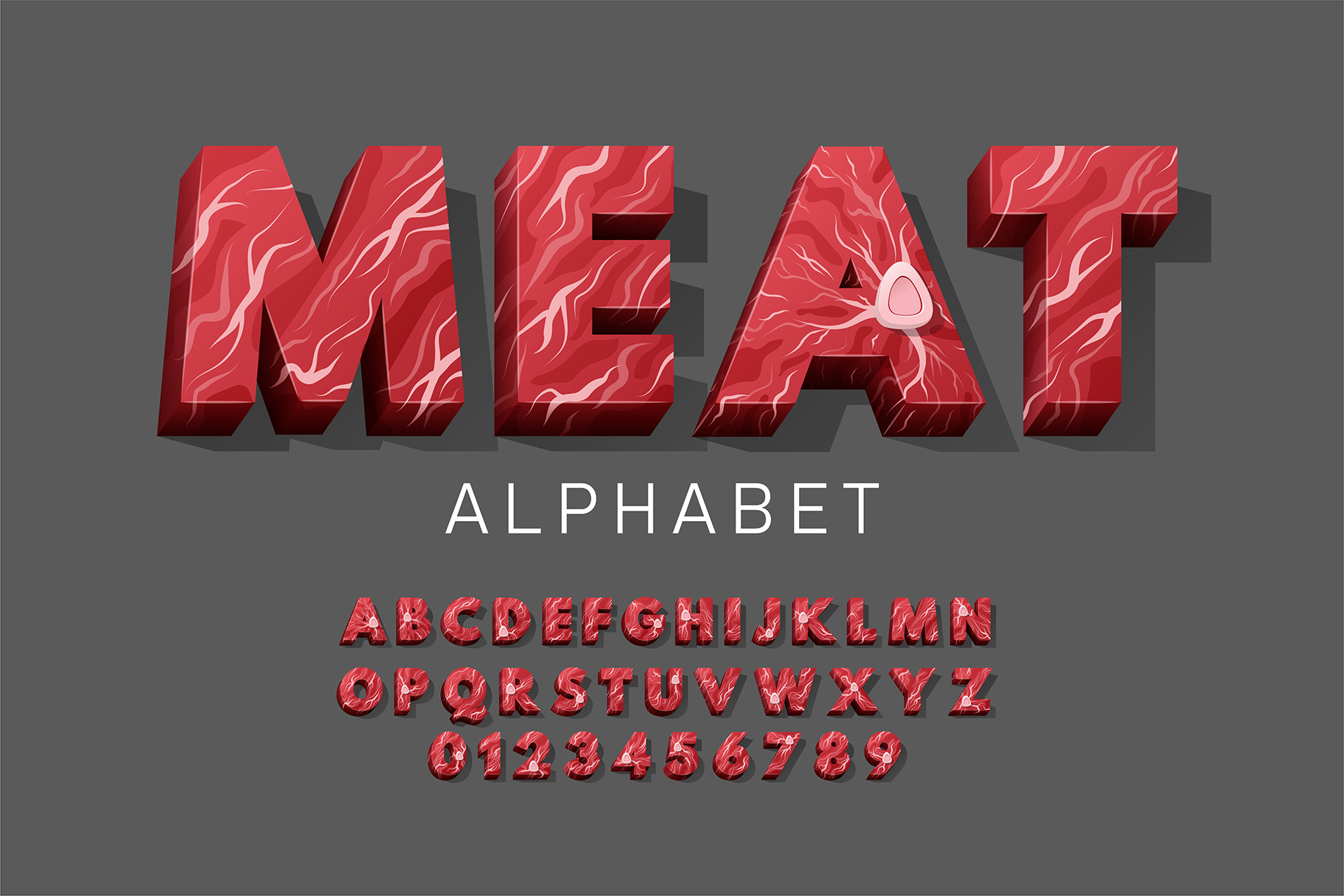
Raw Meat Alphabet Font Set
Raw Meat Alphabet with Bones. Juicy Vector Font Made of Fresh Beef Cuts for Restaurant Branding, Butcher Shops and Food Design - EPS (Not a Font!)
- Uppercase letters A - Z
- Numbers 0 - 9
- Clean, modern, and unique alphabet design